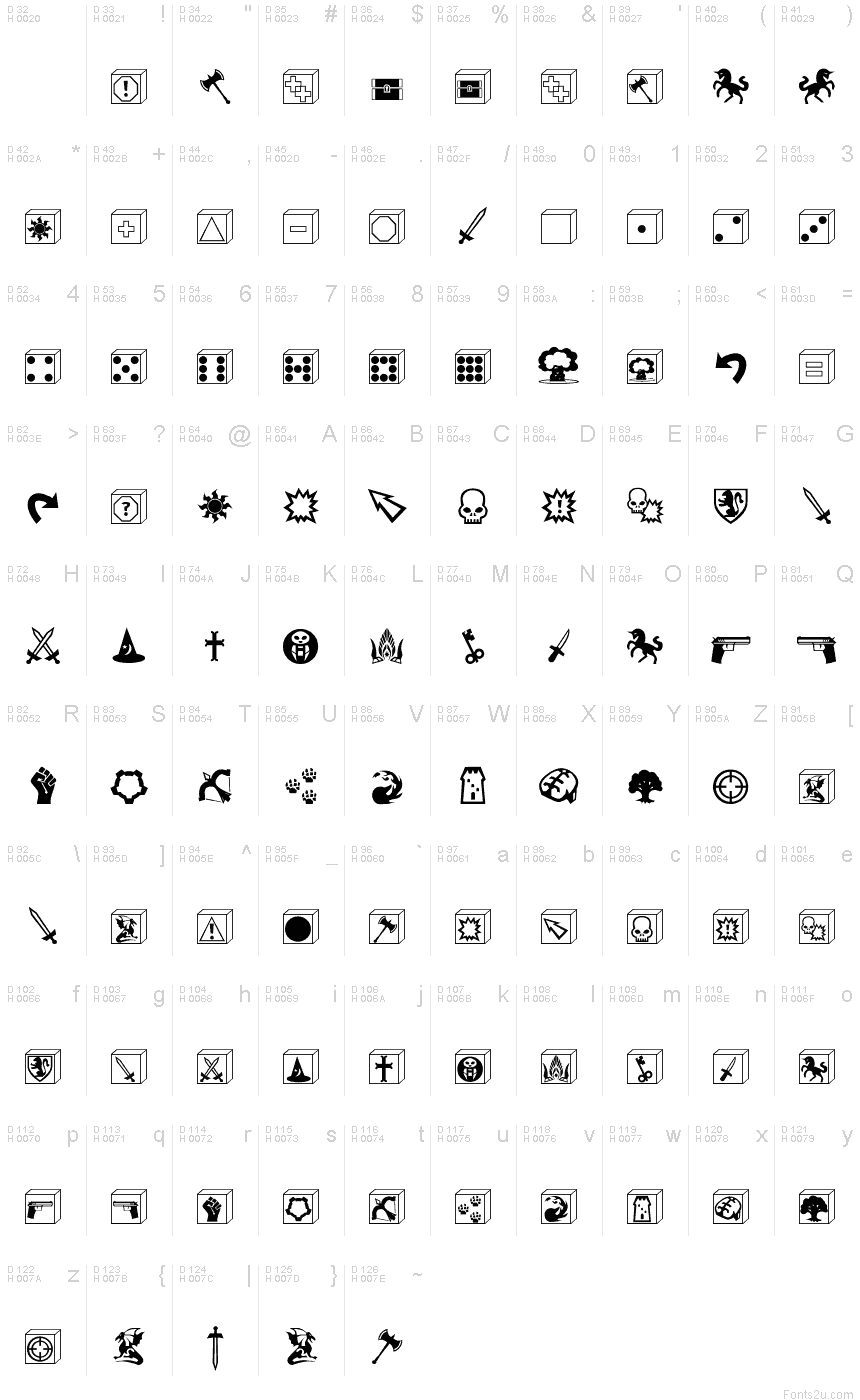
Gamedings
Gamedings by Neale Davidson is a free game-themed dingbat font filled with combat, quest, and fantasy symbols. Its silhouettes range from crossed weapons, keys, fists, and footprints to skulls, magical hats, heraldic beasts, and boxed emblems, with sharp contours and shifts in scale.
Game studios and tabletop publishers can use the set for title screens and promotional posters that need an immediate adventure theme. The boxed crests also suit merchandise and event graphics, where individual symbols can function as badges or faction marks. Swords, dragons, armor, and spell imagery place the collection firmly in fantasy combat and role-playing settings.